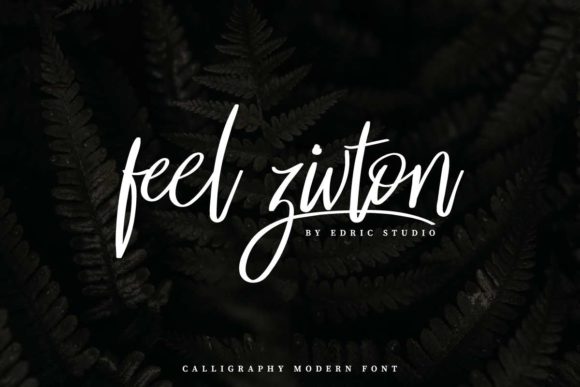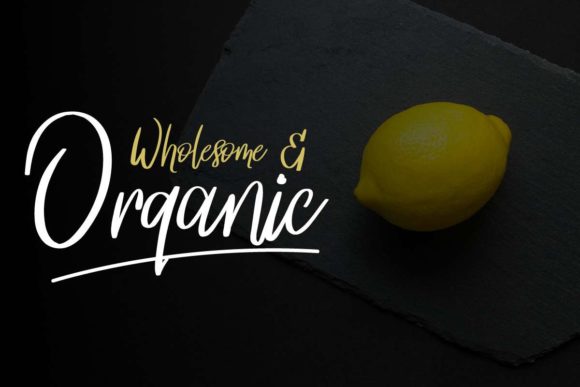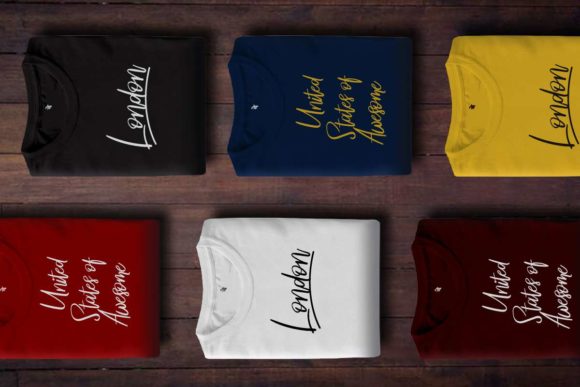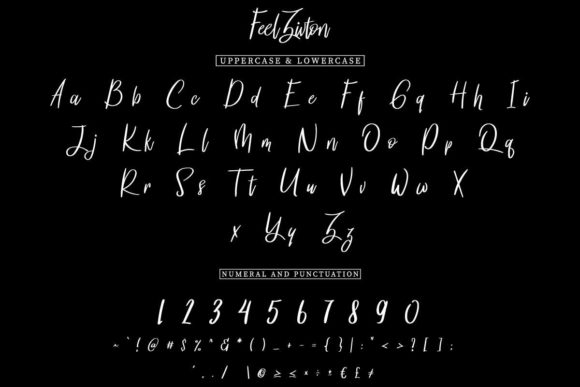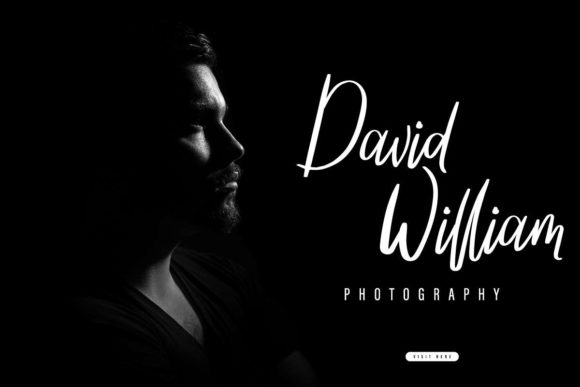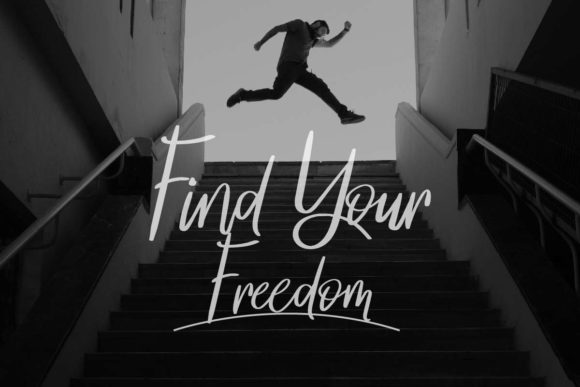
Introducing Feel Zivton Font: The Ultimate Handwritten Font for Designers and Crafters
Are you tired of using the same old fonts for your designs? Look no further than Feel Zivton Font, a distinct and timeless handwritten font that adds a touch of elegance and sophistication to any project. Whether you’re designing wedding invitations, thank you cards, quotes, greeting cards, logos, or business cards, Feel Zivton Font is the perfect choice.
What Makes Feel Zivton Font Special?
Feel Zivton Font is a beautifully crafted handwritten font that features a varying baseline, smooth lines, gorgeous glyphs, and stunning alternates. Its unique and distinctive style sets it apart from other fonts, making it perfect for designers and crafters who want to add a personal touch to their work.
Feel Zivton Font is incredibly versatile and can be used for a wide range of design projects. Here are just a few ideas to get you started:
- Wedding invitations: Add a touch of romance and elegance to your wedding invitations with Feel Zivton Font.
- Thank you cards: Express your gratitude in style with beautifully designed thank you cards.
- Quotes: Create stunning quote graphics for social media or blogs.
- Greeting cards: Design beautiful greeting cards for birthdays, holidays, and special occasions.
- Logos: Create a unique and memorable logo for your business or brand.
- Business cards: Stand out from the crowd with beautifully designed business cards.
Why Choose Feel Zivton Font?
There are many reasons why Feel Zivton Font is the perfect choice for designers and crafters. Here are just a few:
- Unique and distinctive style: Feel Zivton Font has a one-of-a-kind style that will set your designs apart from the crowd.
- Versatile: Feel Zivton Font can be used for a wide range of design projects, from wedding invitations to logos.
- Timeless: The classic style of Feel Zivton Font ensures that your designs will never go out of style.
Tips for Using Feel Zivton Font
Here are a few tips for getting the most out of Feel Zivton Font:
- Experiment with different sizes and colors: Feel Zivton Font looks great in a variety of sizes and colors, so don’t be afraid to experiment.
- Pair it with other fonts: Feel Zivton Font pairs well with a variety of other fonts, so try pairing it with a bold font for a striking contrast.
- Use it for headings and titles: Feel Zivton Font is perfect for headings and titles, where its elegant style can really shine.